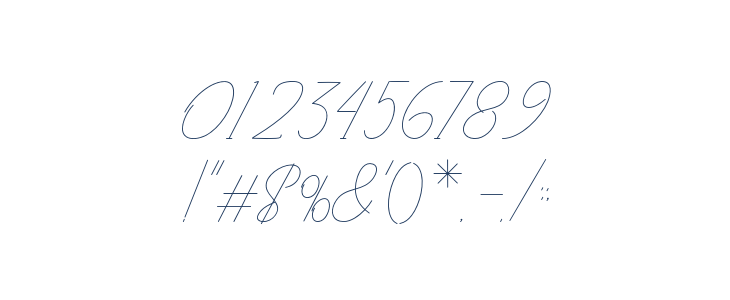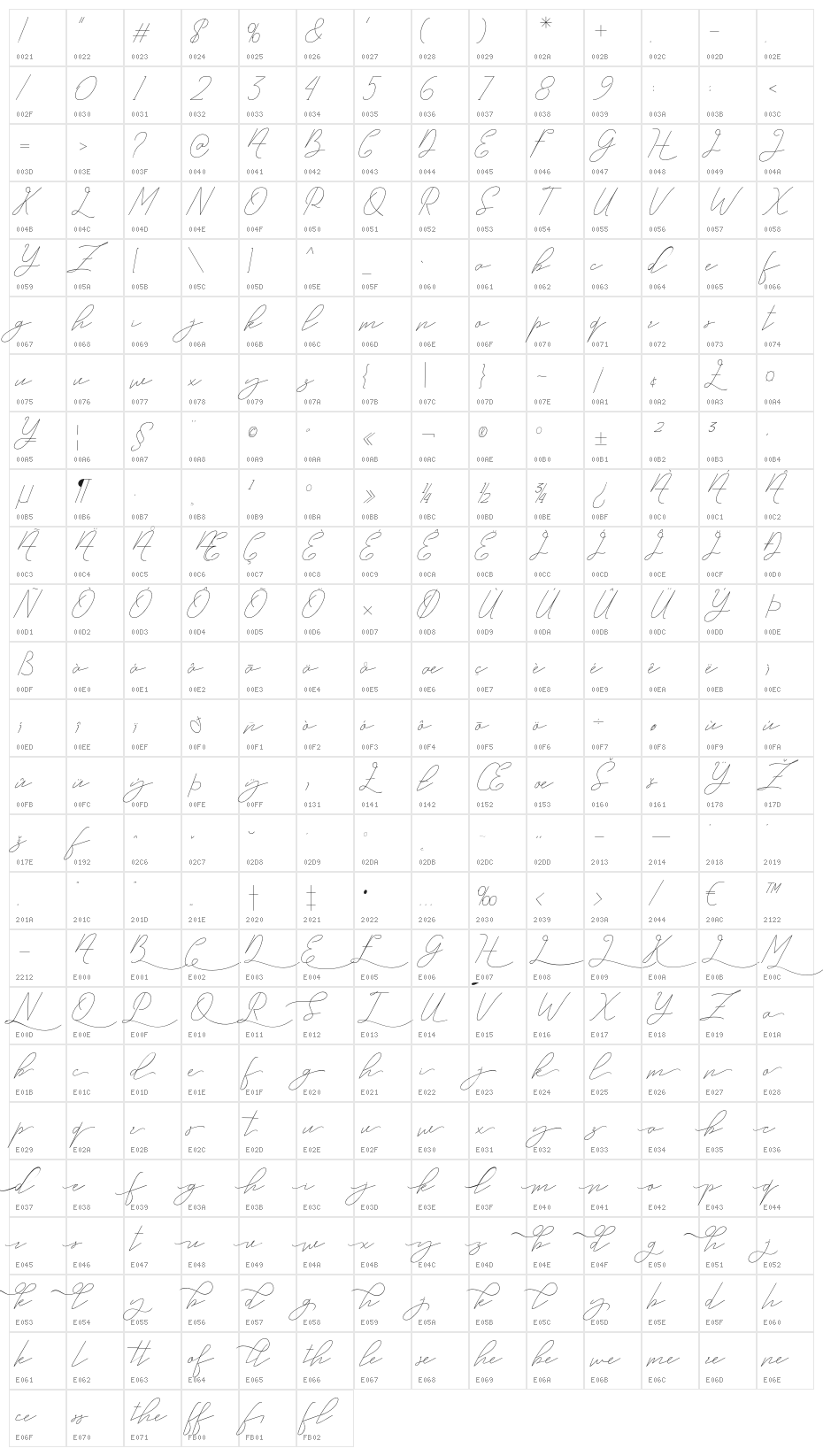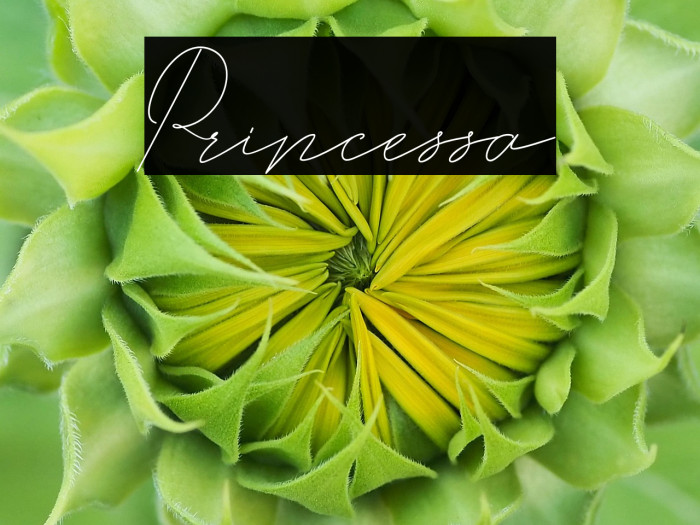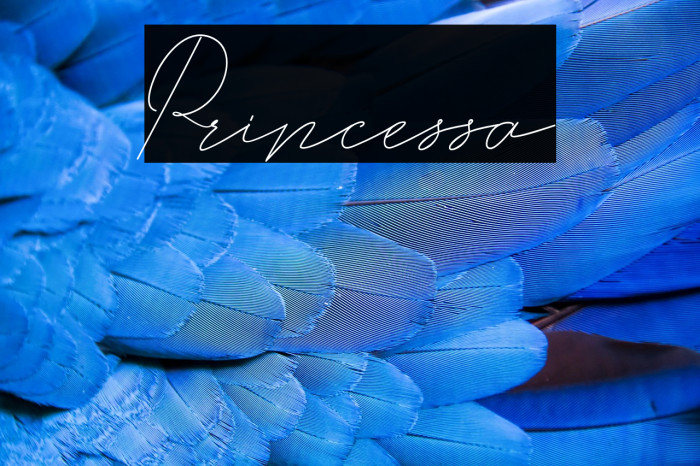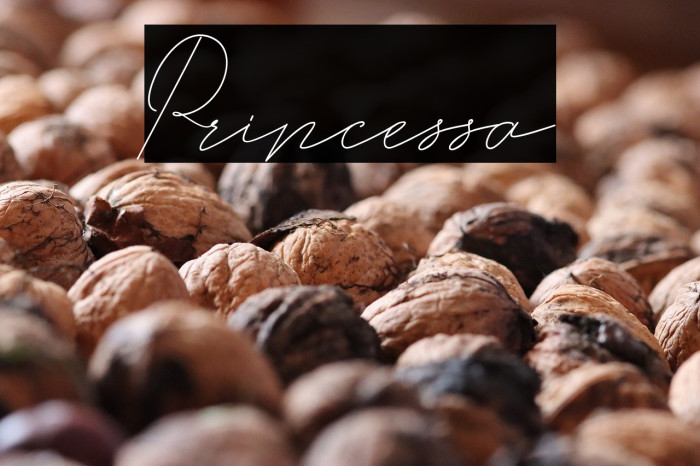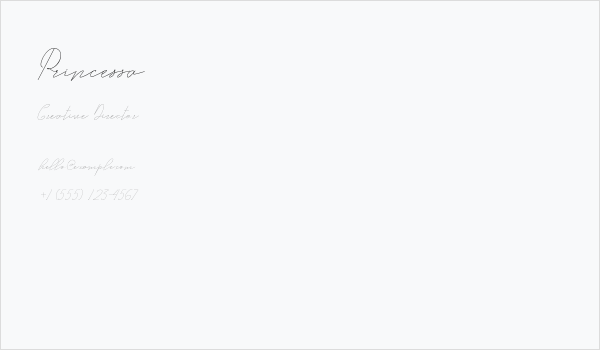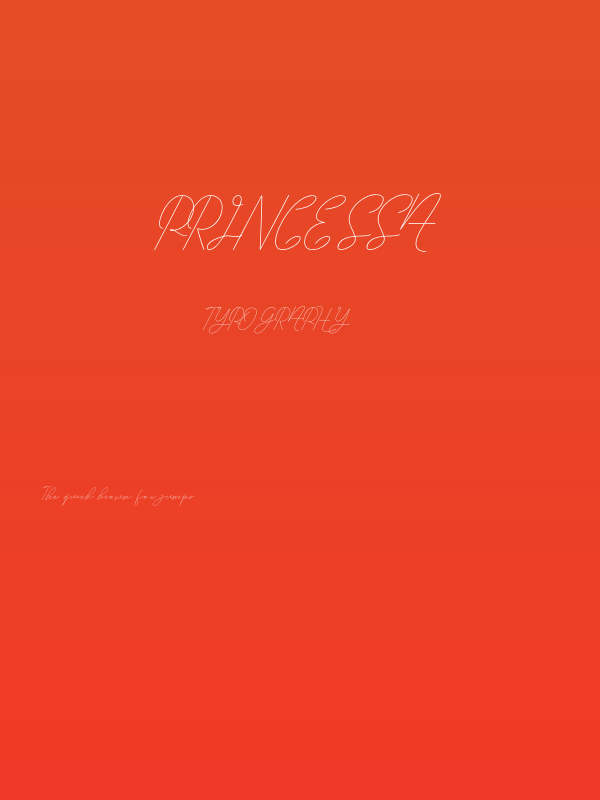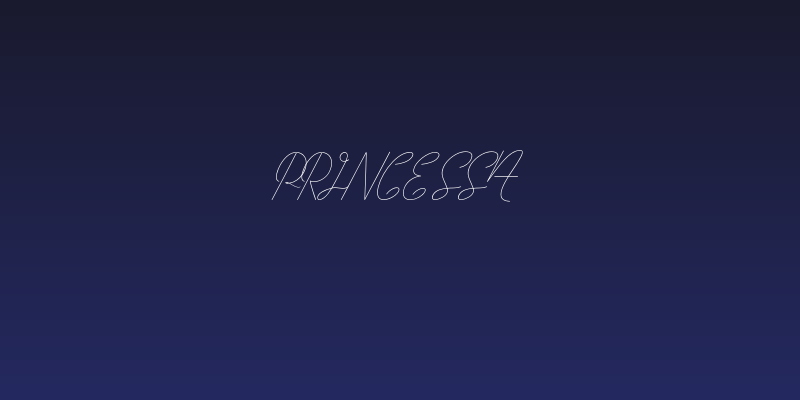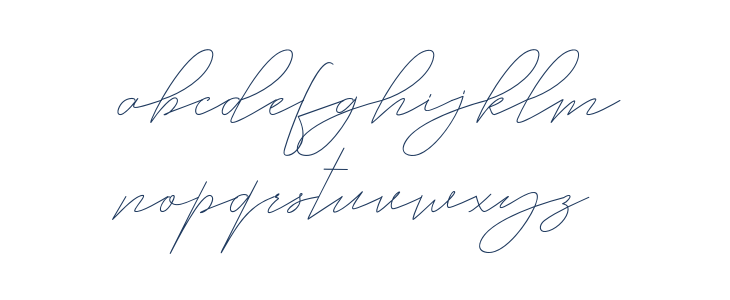
Princessa Font
This elegant script font features a flowing, cursive style with smooth, continuous strokes that mimic the fluidity of handwriting. The uppercase letters are characterized by their tall, slender forms and gentle loops, while the lowercase letters maintain a consistent slant and graceful curves. The numerals are designed with a similar elegance, offering a cohesive look across all characters. The font's delicate lines and refined appearance make it ideal for projects that require a touch of sophistication and charm.
| Overall Style | Elegant |
| Use Case | Invitations, Branding, Stationery |
| Proposed Projects | Ideal for wedding invitations, elegant branding, personal stationery, and upscale packaging. |